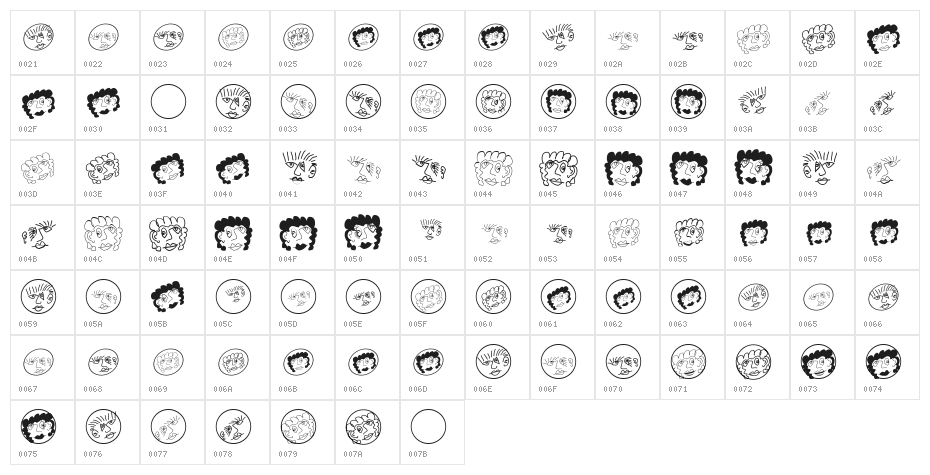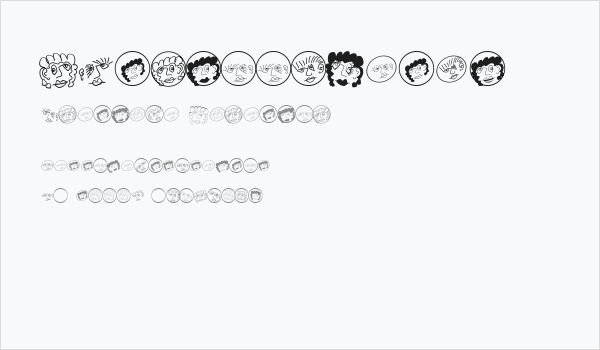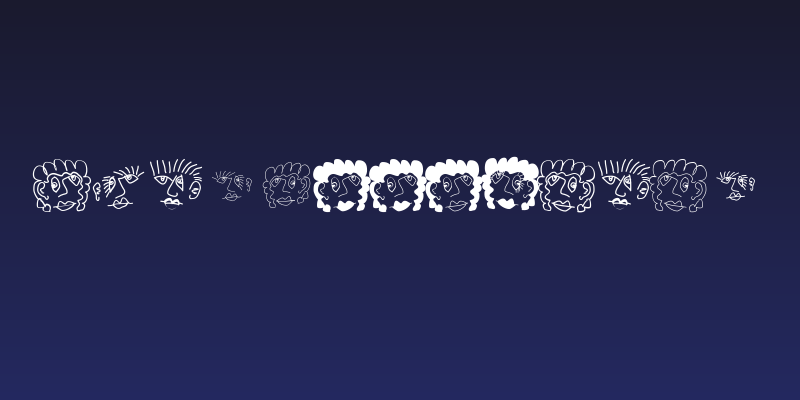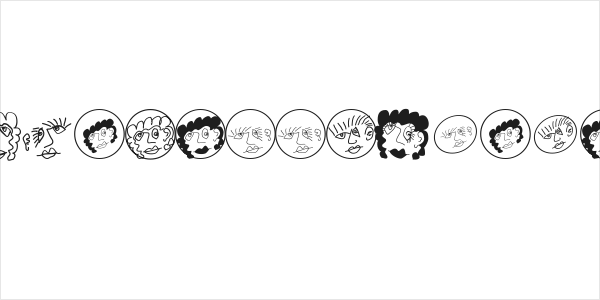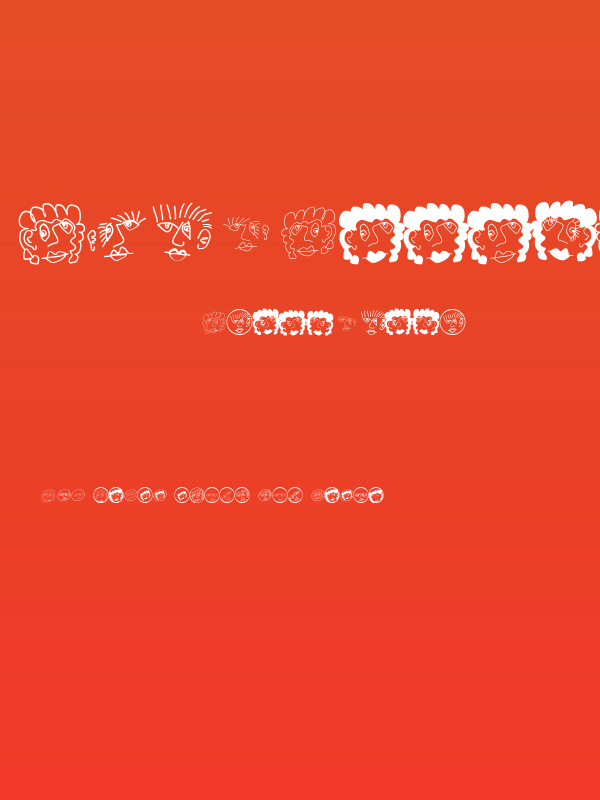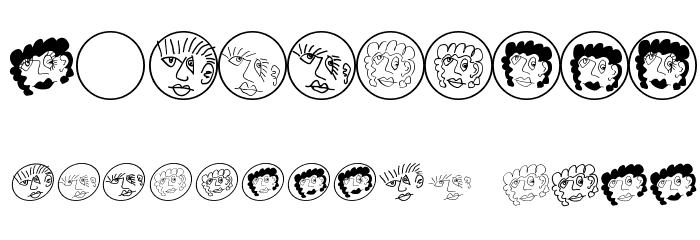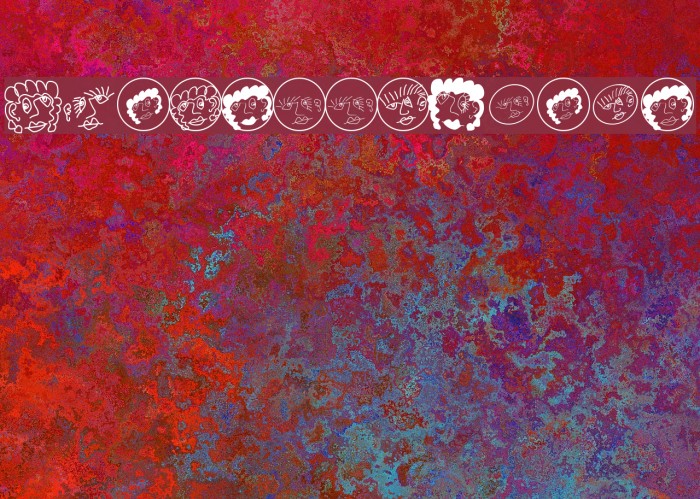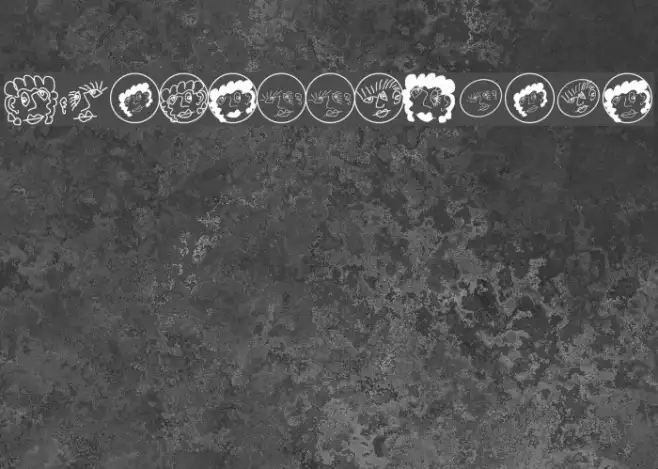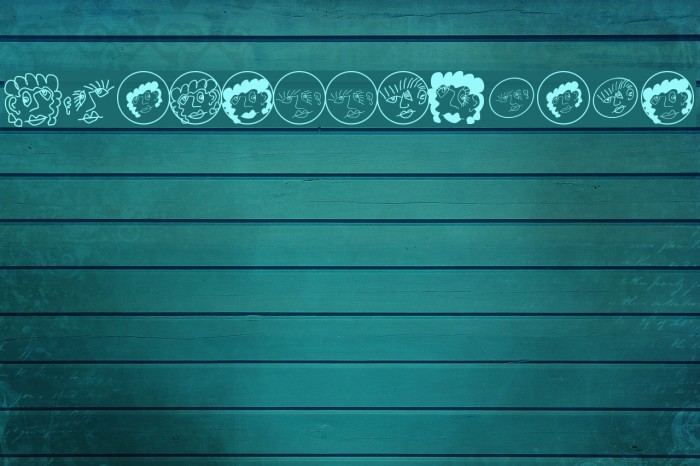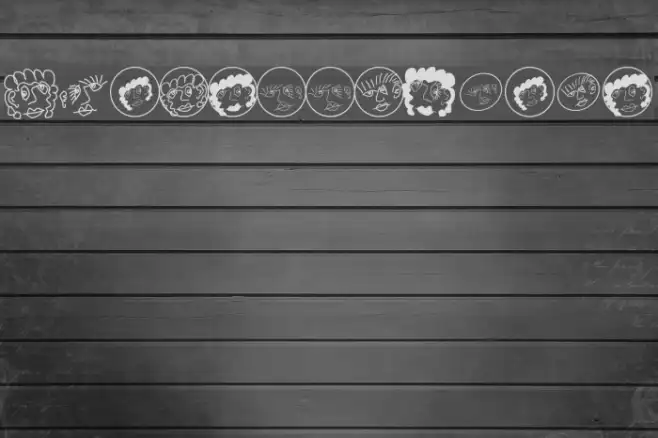
MKartoonHeads Font
MKartoonHeads Description
This is not a traditional font but rather a collection of cartoon-style illustrations depicting various expressive faces. Each character is represented by a unique head with distinct features, showcasing a playful and whimsical style. The illustrations are bold and outlined, with some filled in black and others left in white, creating a dynamic visual contrast. The characters are enclosed in circular frames, adding a cohesive structure to the set. This collection is ideal for creative projects that require a fun and lighthearted touch.
| Use Case | Logos, Illustrations, Creative projects |
| Proposed Projects | Ideal for children's books, playful branding, educational materials, or any project requiring a whimsical and creative touch. |